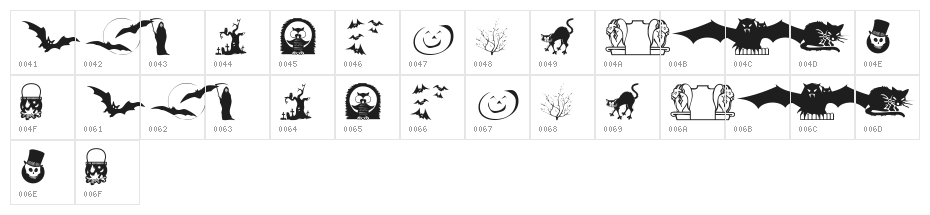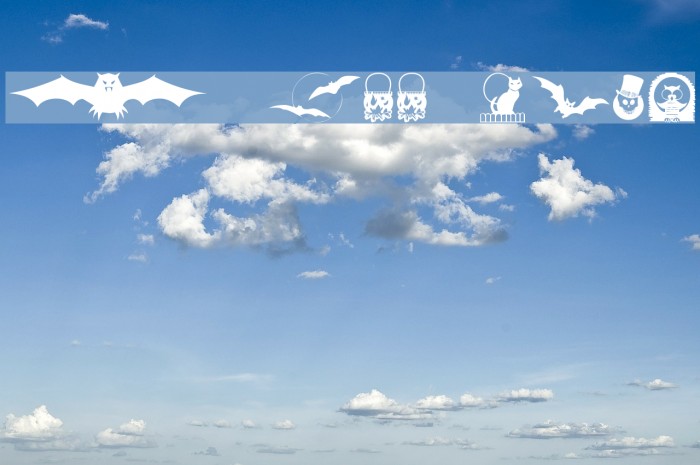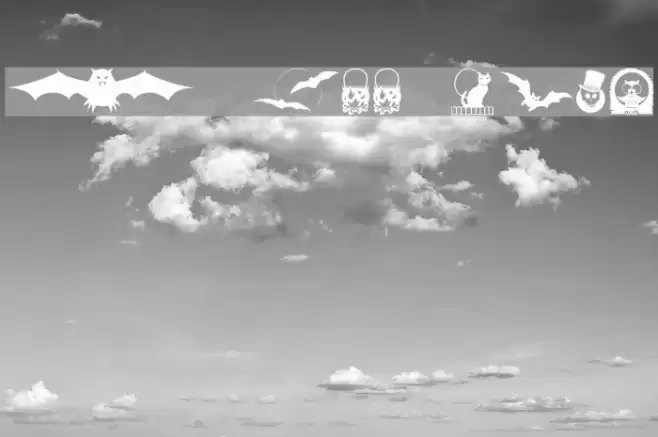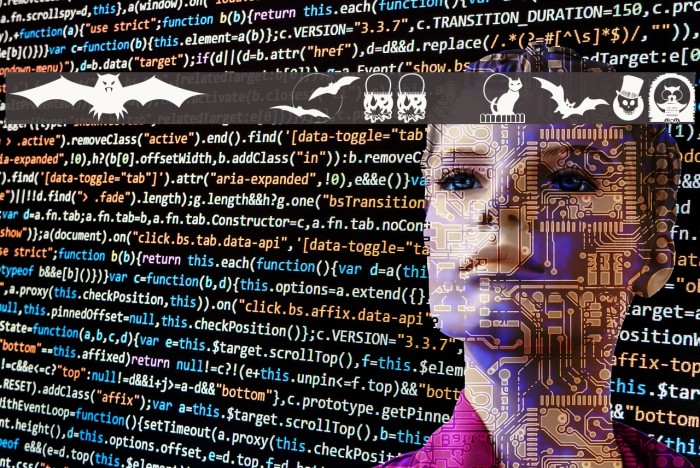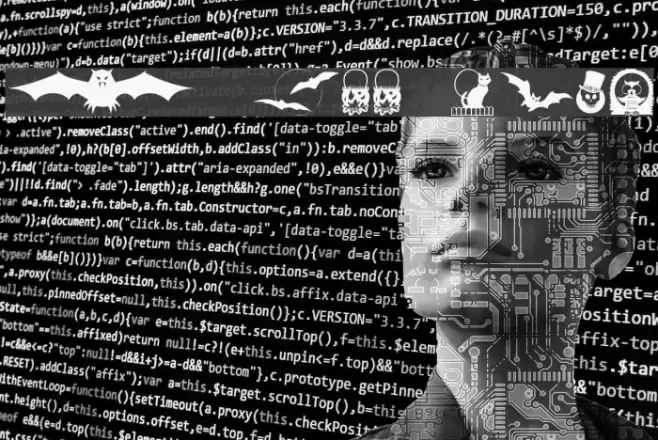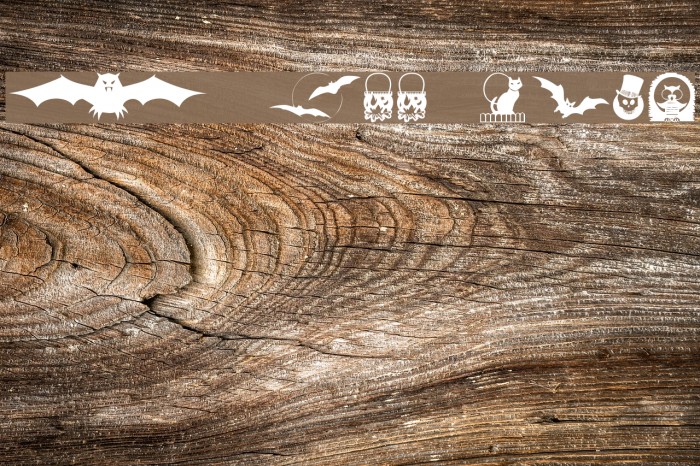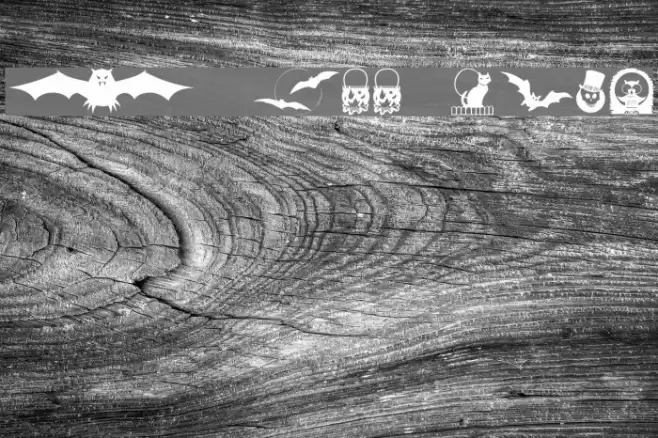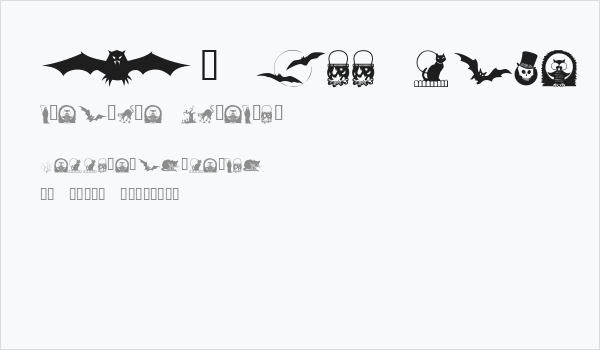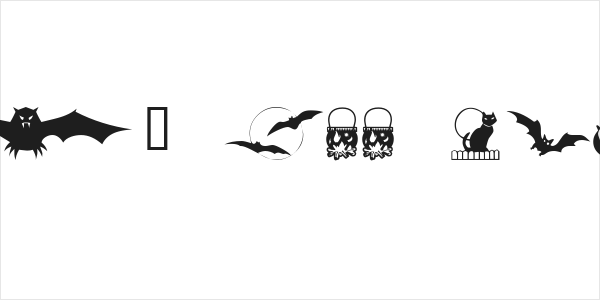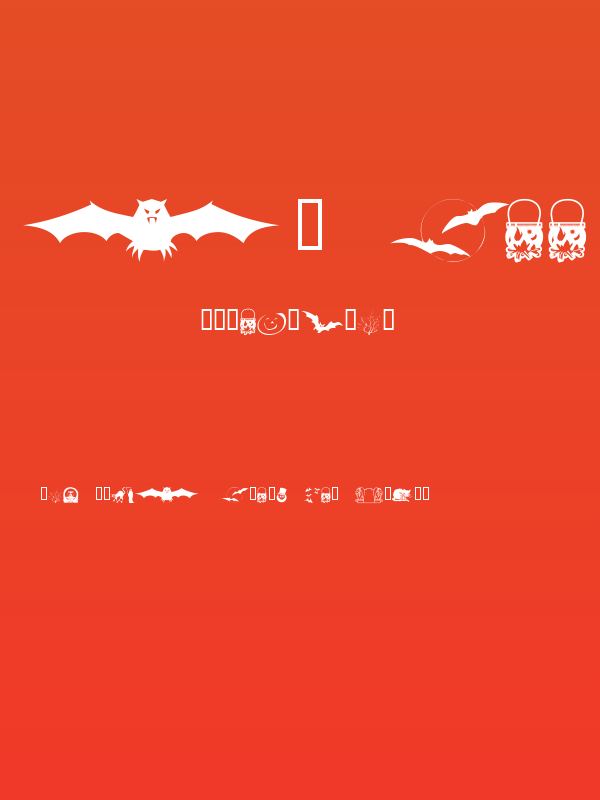
KR Boo Lane Font
KR Boo Lane Description
This font is a decorative and playful collection of Halloween-themed symbols. It features a variety of spooky and whimsical icons, including bats, skulls, pumpkins, and other Halloween motifs. The characters are bold and intricate, each designed with a high level of detail to capture the essence of Halloween. The style is distinctly decorative, making it ideal for festive and themed projects. The icons are evenly spaced, ensuring clarity and readability despite their complex designs. This font is perfect for adding a touch of Halloween spirit to any creative project.
| Use Case | Logos, Headlines, Decorative elements |
| Proposed Projects | Ideal for Halloween party invitations, themed posters, festive banners, and creative social media graphics. |